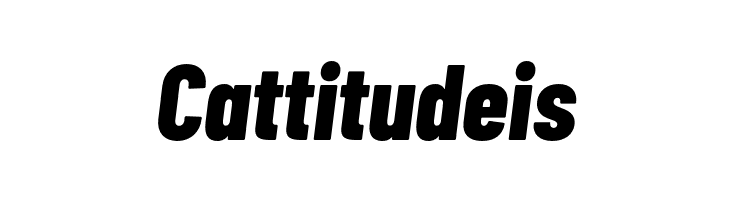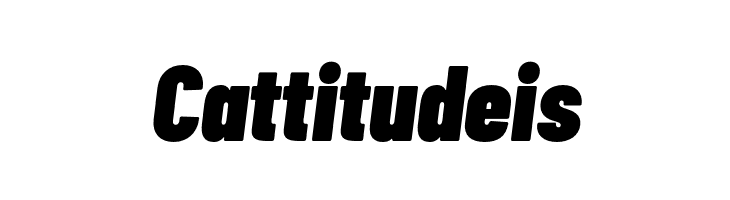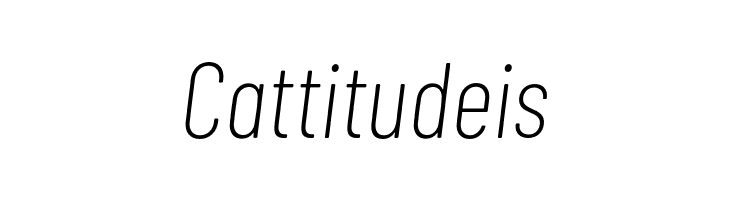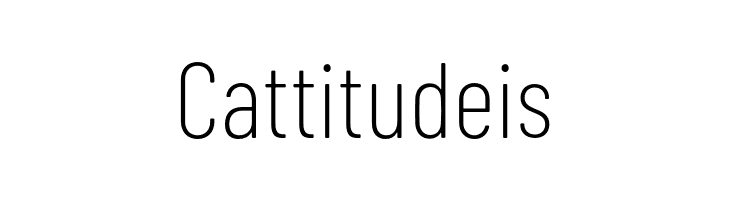
A bold, condensed typeface with a modern, geometric style.
A bold, condensed font with a modern and impactful style.
A bold, condensed, and italic typeface with high contrast and tight spacing.
A bold, condensed, and italic font perfect for impactful headlines.
A bold, condensed typeface with a modern and impactful style.
A bold, condensed sans-serif font with medium contrast and high legibility.
A modern, bold, and italic condensed typeface with a sleek and professional appearance.
A bold, italic, and condensed font ideal for impactful designs.
A bold, condensed typeface ideal for impactful headlines.
A bold, condensed typeface with a modern and impactful design.
A bold, condensed, and italic typeface perfect for striking headlines.
A bold, condensed, and italic sans-serif font with high contrast and tight spacing.
A modern, condensed sans-serif font with an extra light weight, perfect for sleek and space-efficient designs.